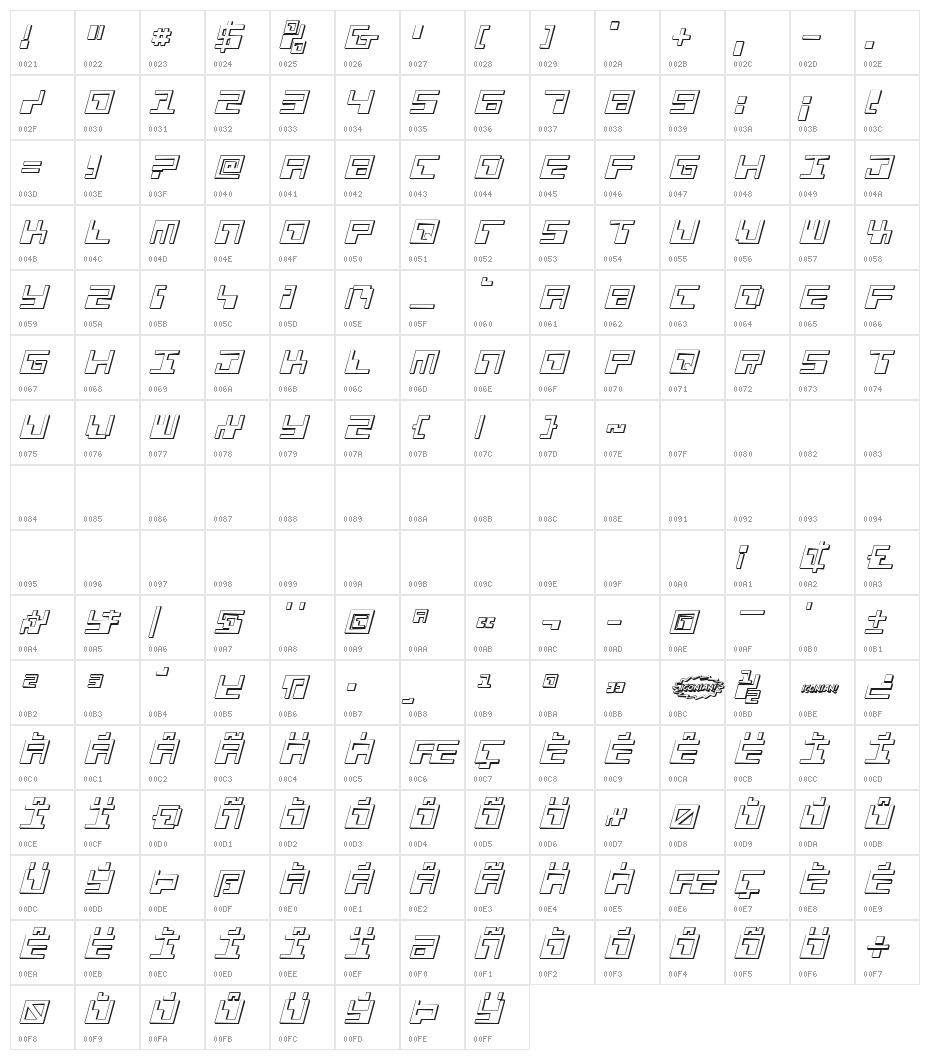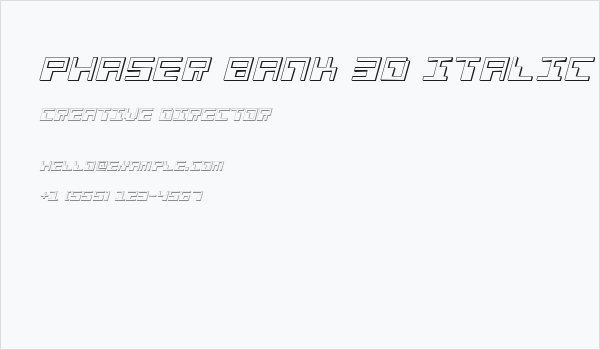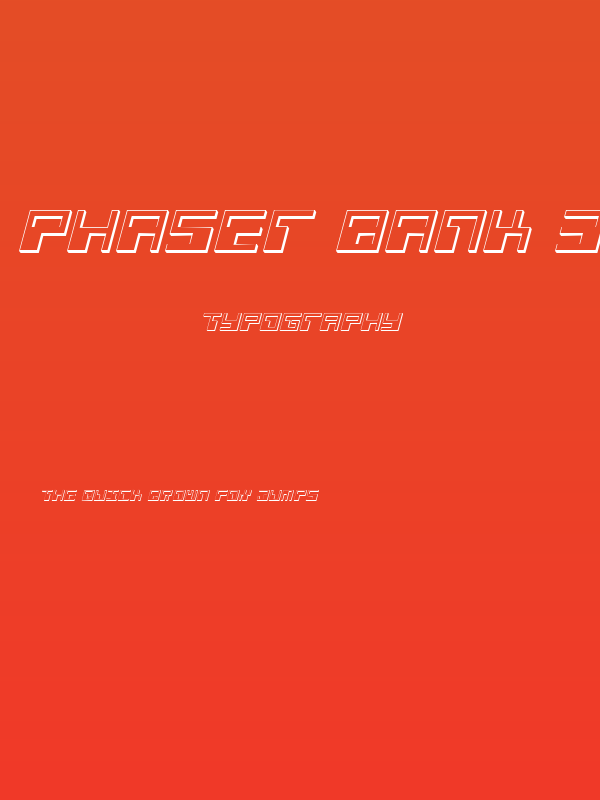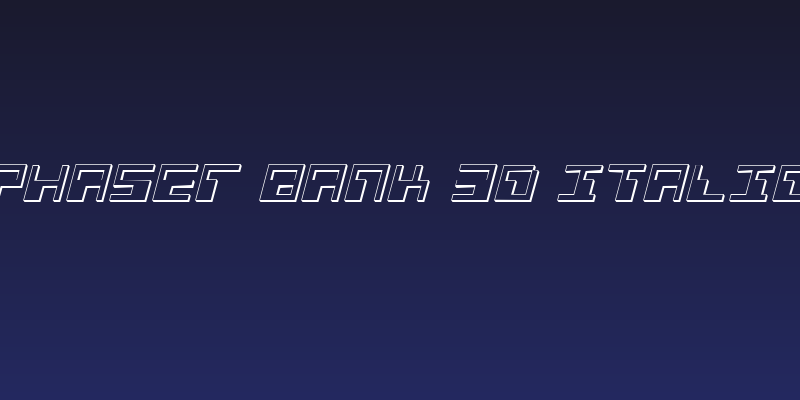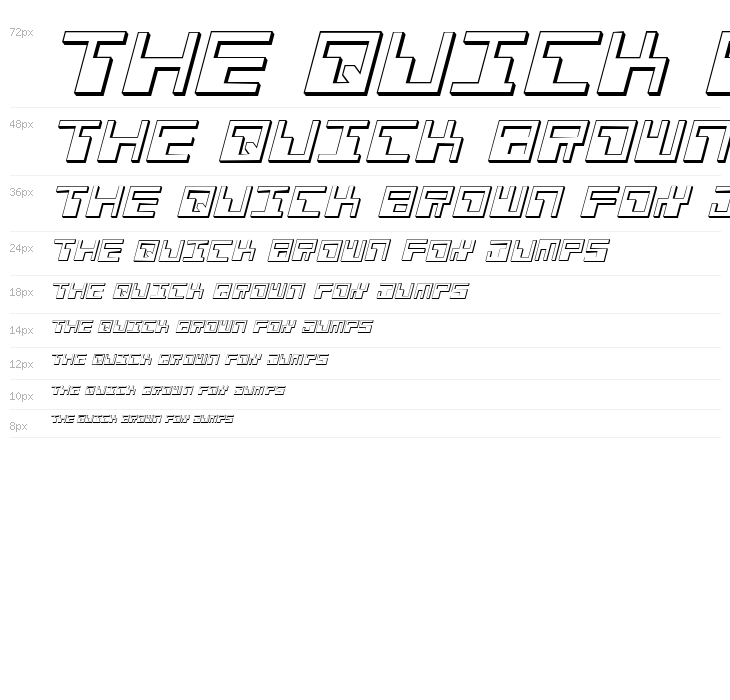
Phaser Bank 3D Italic Font
Phaser Bank 3D Italic Description
This font features a dynamic 3D effect with an italicized slant, creating a sense of movement and depth. The characters are outlined, giving them a futuristic and technical appearance. The geometric shapes are consistent throughout, with sharp angles and clean lines that enhance the modern aesthetic. The uppercase and lowercase letters maintain uniformity in style, while the numerals and special characters complement the overall design. This font is particularly striking due to its bold presence and the illusion of three-dimensionality, making it ideal for eye-catching designs.
| Proposed Projects | Ideal for futuristic branding, tech-related projects, video game titles, and sci-fi themed posters. |